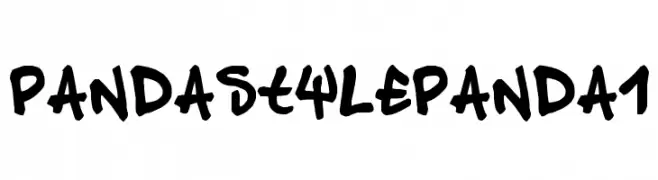
pandastylepanda1 Font
A bold, playful handwritten font with thick strokes and a casual style.
Font by Andrew Hart - dirt2.com
An edgy, grungy font with jagged, irregular strokes and a rebellious vibe.
Pretty Panda Font
Font by Supersemar Letter
A playful, whimsical font with rounded and angular elements, perfect for creative projects.
AKWinter Yawns Font
A festive decorative font with playful winter-themed icons.
Kids Corner Regular Font
A playful, handwritten font with a casual and friendly appearance.
Baby Panda Font
Font by Tigadestd
A playful, bold font with rounded, thick strokes and a whimsical, friendly appearance.
BillyBears Panda Font
Font by Loraine Wauer Ferus www.billybear4kids.com
A playful font with characters embedded in cartoon panda designs.
Fidena Font